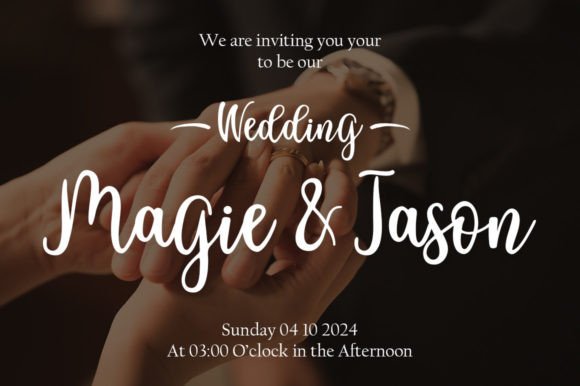
Bilgates Font: Elevate Your Designs with a Modern Calligraphy Feel
In the world of typography, fonts play a crucial role in conveying the tone and personality of a brand or design. With the numerous font options available, finding the perfect one that resonates with your project’s theme can be overwhelming. However, if you’re looking for a font that exudes modernity and sophistication, look no further than Bilgates Font. In this article, we’ll explore the features and benefits of Bilgates, a handwritten font with a modern calligraphy feel that’s perfect for a wide range of design applications.
What is Bilgates Font?
Bilgates Font is a beautifully crafted handwritten font that boasts a modern calligraphy feel. Its unique and elegant design makes it an excellent choice for designers, artists, and crafters looking to add a touch of sophistication to their projects. Whether you’re working on a modern design, heading, blog, logo, branding, invitation, or any other creative endeavor, Bilgates is the perfect companion to help you achieve your goals.
Key Features of Bilgates Font
Bilgates Font comes with a range of features that make it an attractive option for designers. Some of its key features include:
- Modern Calligraphy Feel: Bilgates has a distinct modern calligraphy feel that sets it apart from other fonts. Its elegant and fluid strokes give it a sophisticated look that’s perfect for high-end designs.
- Handwritten Style: The font’s handwritten style adds a personal touch to your designs, making them more approachable and relatable.
- Versatility: Bilgates is a versatile font that can be used for a wide range of design applications, from modern projects and headings to blogs, logos, brandings, and invitations.
Benefits of Using Bilgates Font
Using Bilgates Font in your designs comes with a range of benefits, including:
- Enhanced Visual Appeal: Bilgates’ unique and elegant design adds a touch of sophistication to your designs, making them more visually appealing.
- Improved Brand Identity: The font’s modern calligraphy feel and handwritten style help create a strong brand identity that resonates with your target audience.
- Time-Saving: With Bilgates, you can save time and effort in creating custom designs from scratch. The font’s versatility and ease of use make it easy to integrate into your workflow.
Design Applications for Bilgates Font
Bilgates Font is perfect for a wide range of design applications, including:
- Modern Projects: Use Bilgates to add a touch of modernity and sophistication to your projects, such as brochures, flyers, and posters.
- Headings and Titles: The font’s elegant design makes it perfect for headings and titles, adding a touch of elegance to your designs.
- Blogs and Articles: Bilgates is an excellent choice for blogs and articles, providing a clean and readable font that’s easy on the eyes.
- Logos and Branding: Use Bilgates to create stunning logos and branding materials that reflect your brand’s personality and values.
- Invitations and Events: The font’s elegant design makes it perfect for invitations, events, and other special occasions.
Tips for Using Bilgates Font
To get the most out of Bilgates Font, here are some tips to keep in mind:
- Pair it with Other Fonts: Experiment with pairing Bilgates with other fonts to create a unique and visually appealing design.
- Adjust Font Size and Color: Adjust the font size and color to suit your design needs and ensure optimal readability.
- Use it for Headings and Titles: Use Bilgates for headings and titles to add a touch of elegance and sophistication to your designs.
- Experiment with Different Design Software: Try using Bilgates with different design software, such as Adobe Illustrator, Photoshop, and Canva, to see what works best for your workflow.
In conclusion, Bilgates Font is a beautifully crafted handwritten font with a modern calligraphy feel that’s perfect for a wide range of design applications. Its unique and elegant design, versatility, and ease of use make it an excellent choice for designers looking to elevate their designs. Whether you’re working on a modern project, heading, blog, logo, branding, invitation, or any other creative endeavor, Bilgates is the perfect companion to help you achieve your goals.